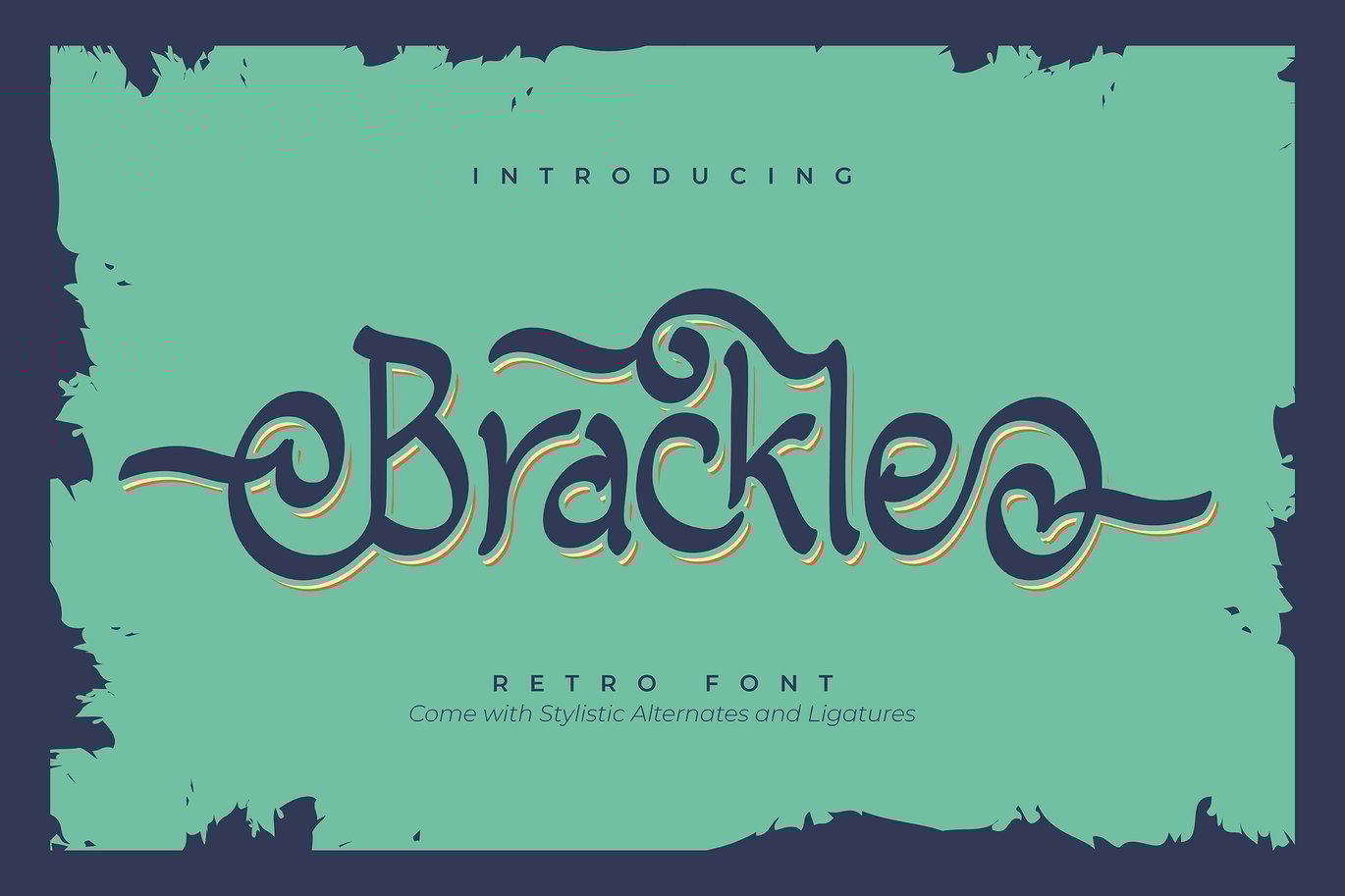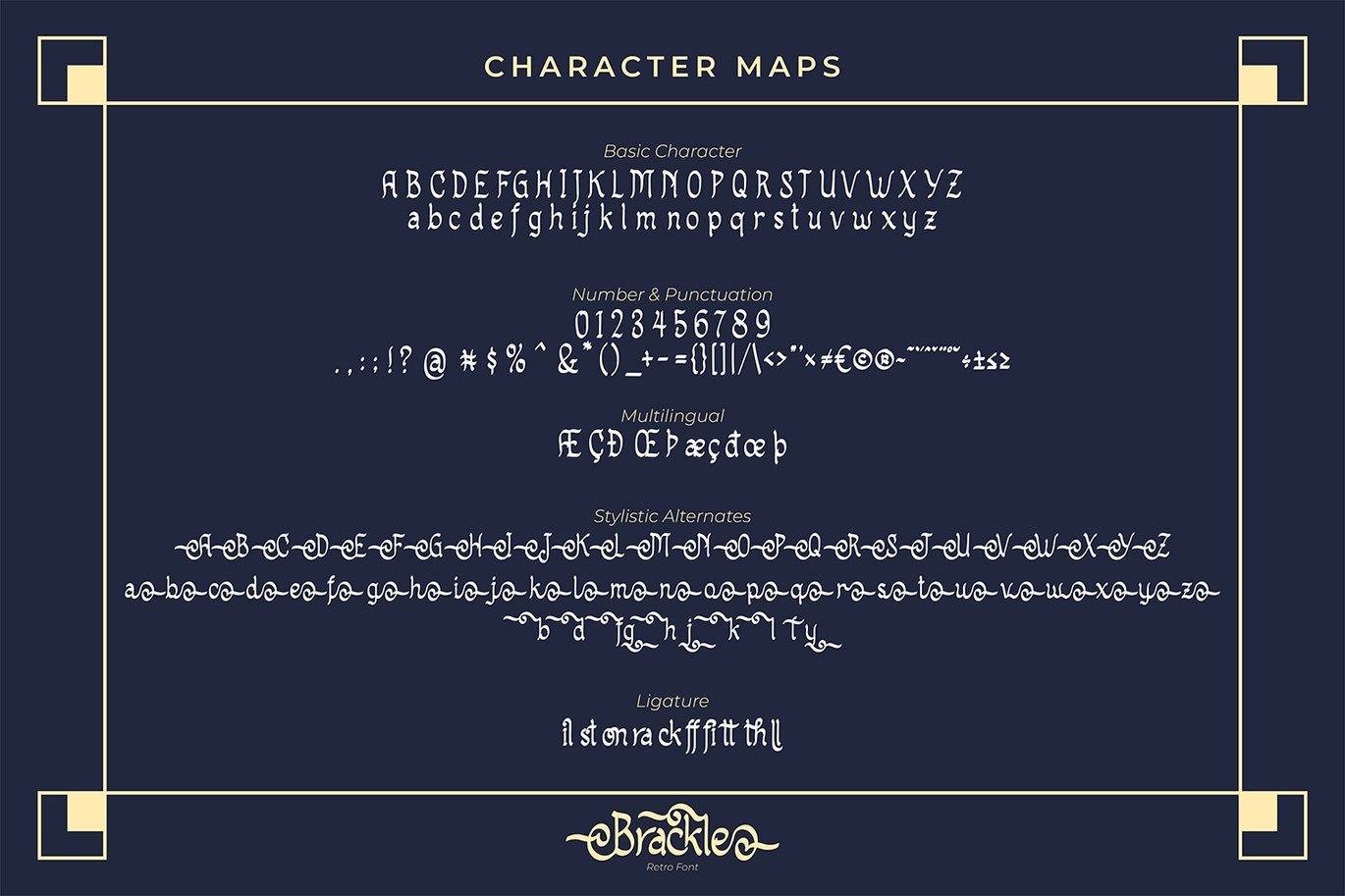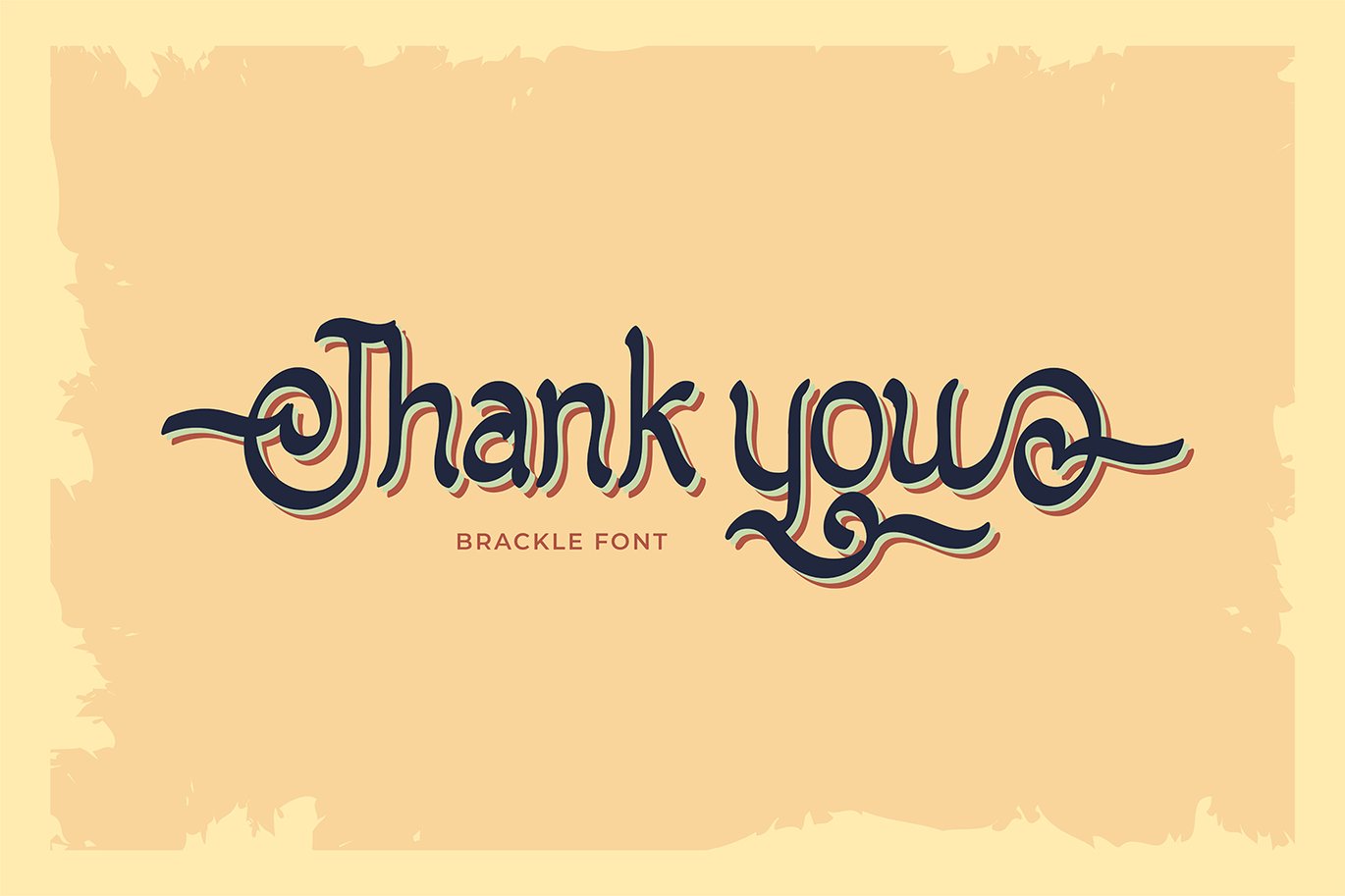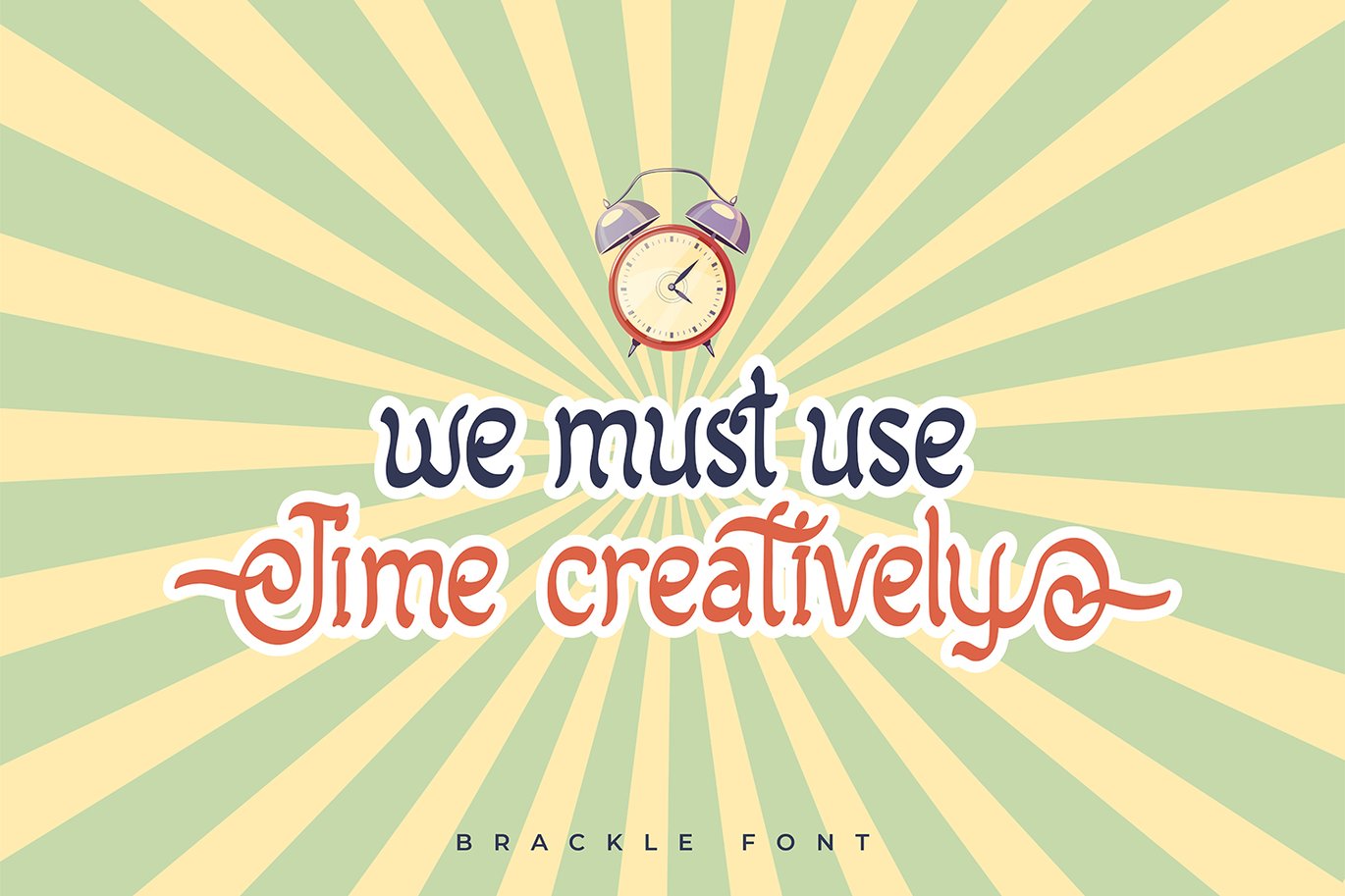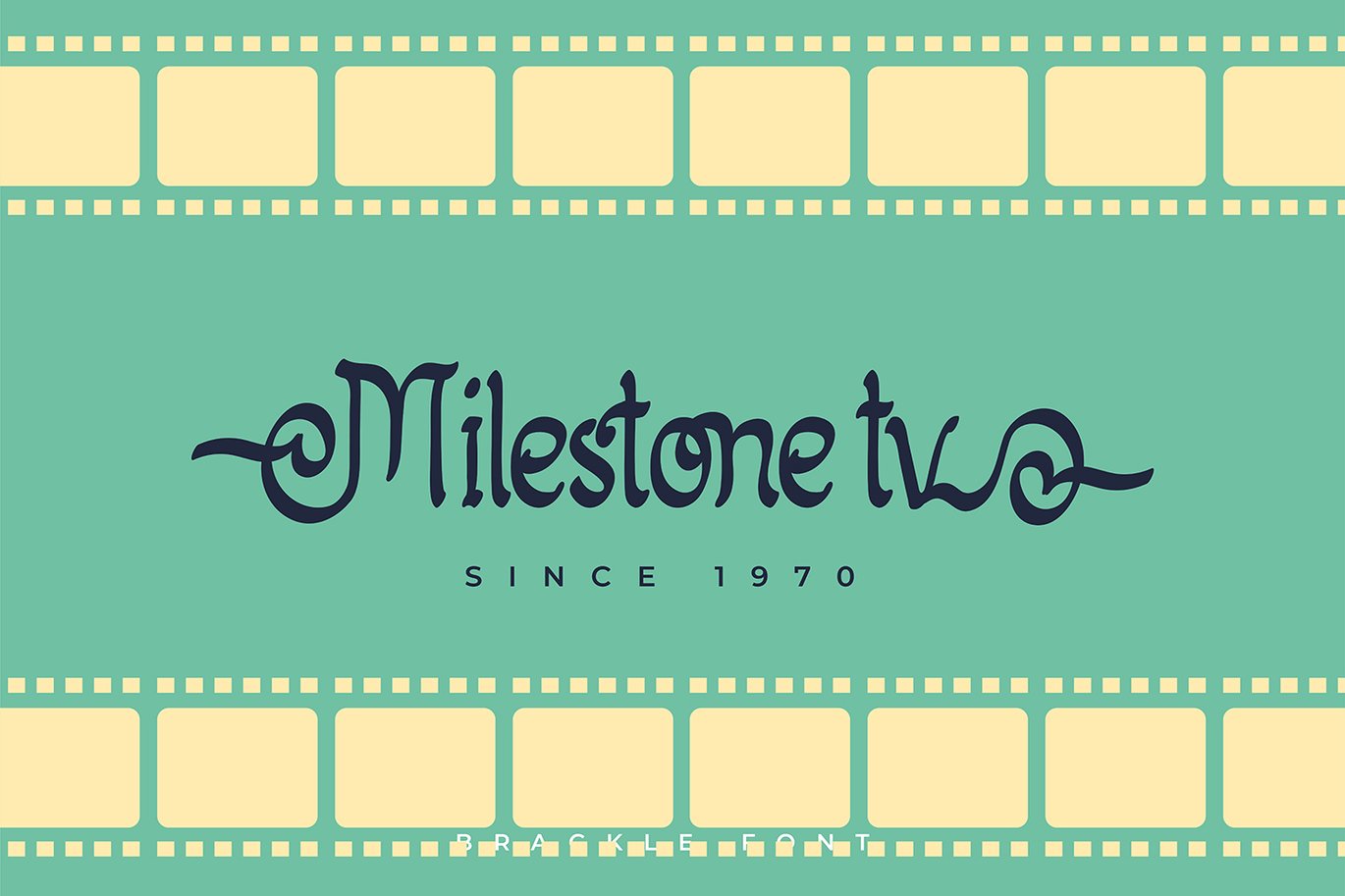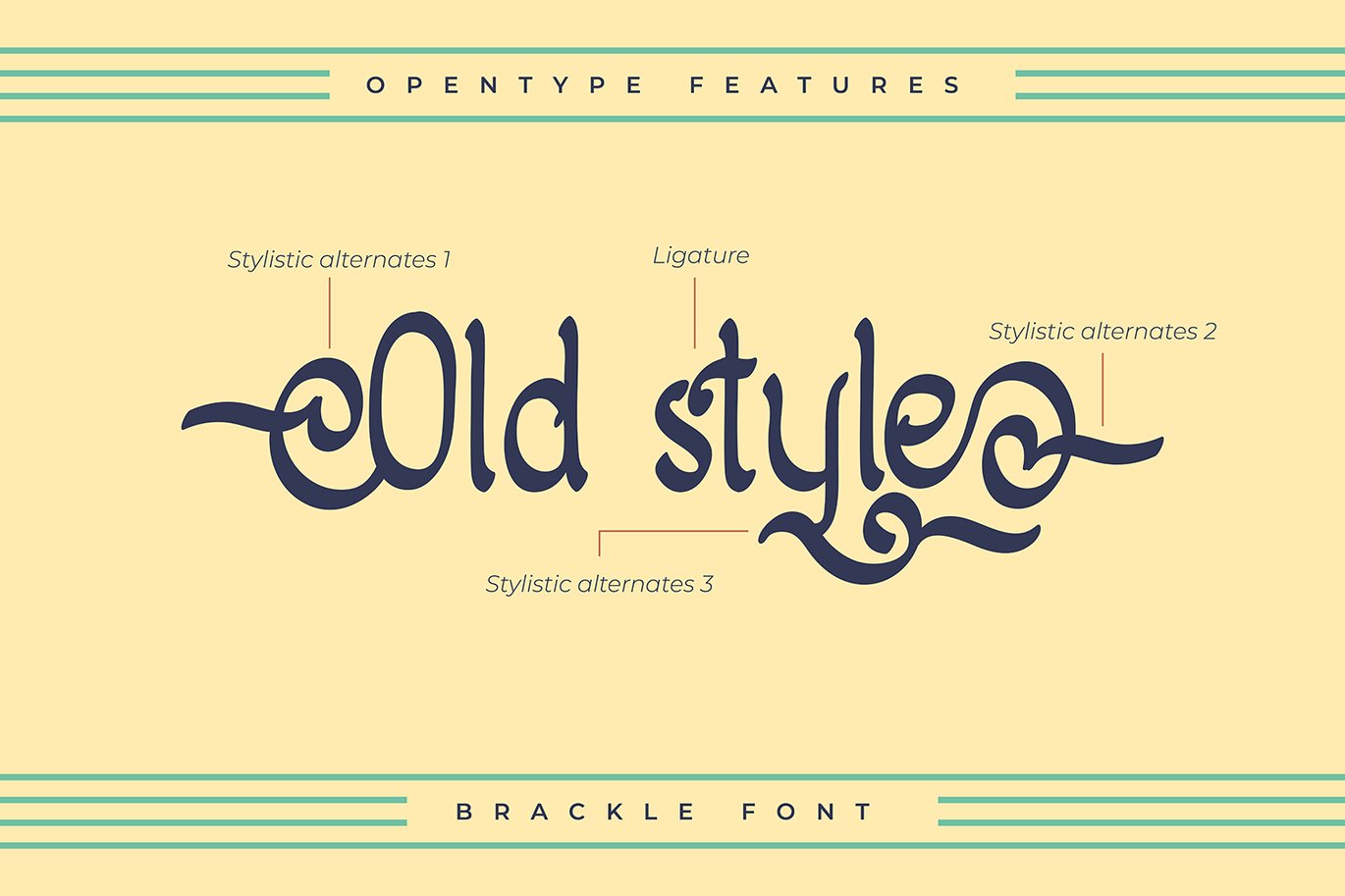
Brackle | Retro Font
Brackle | Retro Font with a calligraphy style, So beautiful on invitation like greeting cards, branding materials, business cards, quotes, posters, and more!